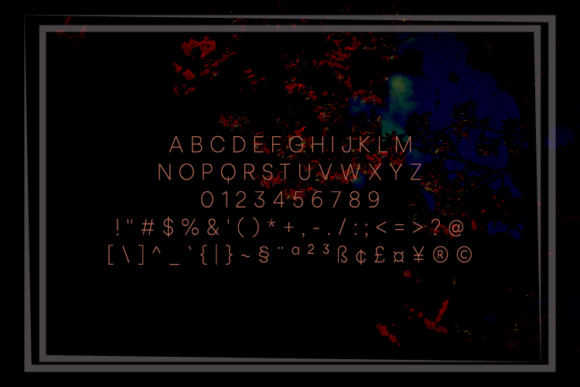
Introducing Grilesthy Thin Font: The Ultimate Modern and Casual Typeface
Are you tired of using the same old fonts for your designs? Look no further! Grilesthy Thin Font is here to revolutionize the way you create stunning visuals. This modern and casual font is designed to bring a friendly feel to your projects, making it perfect for designers and crafters alike.
What Makes Grilesthy Thin Font So Special?
Grilesthy Thin Font is a sans serif font that boasts an incredibly friendly feel, making it ideal for a wide range of design applications. Its clean and minimalist lines ensure that your text remains clear and legible, even at smaller sizes. Whether you’re working on a logo, headline, or block of text, Grilesthy Thin Font is the perfect choice.
Key Features of Grilesthy Thin Font
- 10 Different Weights: Grilesthy Thin Font comes with 10 different weights, ranging from Thin to Extra Black, allowing you to choose the perfect weight for your design. Each weight is sold separately, giving you the flexibility to select the one that best suits your project.
- Sans Serif Design: The font’s sans serif design ensures that your text remains clean and modern, making it perfect for headlines and blocks of text.
- Maximum and Minimum Variations: Grilesthy Thin Font is designed to handle both maximum and minimum variations in text, making it perfect for a wide range of design applications.
Why Choose Grilesthy Thin Font?
So, why should you choose Grilesthy Thin Font for your next design project? Here are just a few reasons:
- Versatility: Grilesthy Thin Font is incredibly versatile, making it perfect for a wide range of design applications, from logos and headlines to blocks of text.
- Legibility: The font’s clean and minimalist design ensures that your text remains clear and legible, even at smaller sizes.
- Friendliness: Grilesthy Thin Font has an incredibly friendly feel, making it perfect for designs that require a personal touch.
How to Use Grilesthy Thin Font in Your Designs
Using Grilesthy Thin Font in your designs is easy. Here are a few tips to get you started:
- Pair it with Other Fonts: Grilesthy Thin Font pairs perfectly with other fonts, making it easy to create stunning visual hierarchies.
- Experiment with Different Weights: With 10 different weights to choose from, don’t be afraid to experiment and find the perfect weight for your design.
- Use it for Headlines and Body Text: Grilesthy Thin Font is perfect for both headlines and body text, making it a great addition to any design project.
In conclusion, Grilesthy Thin Font is a modern and casual font that is perfect for designers and crafters alike. Its friendly feel, clean design, and versatility make it an excellent choice for a wide range of design applications. With 10 different weights to choose from, you’re sure to find the perfect weight for your project. So why wait? Download Grilesthy Thin Font today and take your designs to the next level!
Key Benefits for Designers and Crafters
- Save Time: With Grilesthy Thin Font, you can create stunning visuals in no time.
- Increase Creativity: The font’s versatility and range of weights will inspire you to create something truly unique.
- Enhance Your Brand: Grilesthy Thin Font is perfect for creating a consistent brand identity across all your design projects.
Whether you’re a seasoned designer or a crafter looking to create something special, Grilesthy Thin Font is the perfect addition to your toolkit. So why not give it a try today and see the difference it can make in your designs?